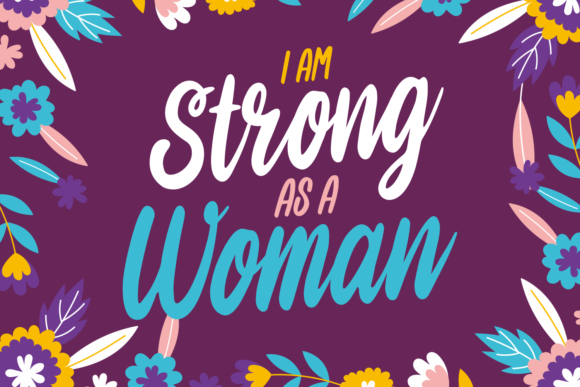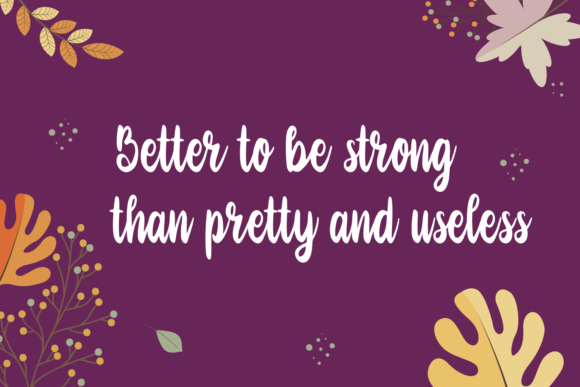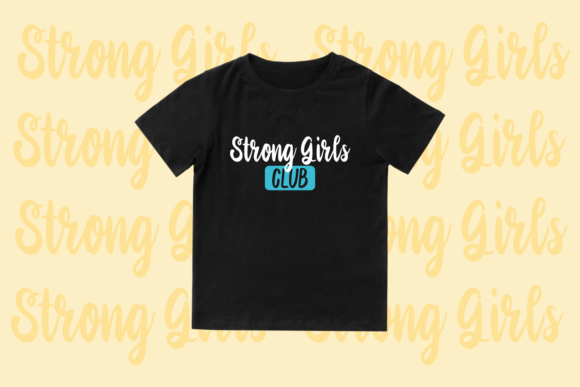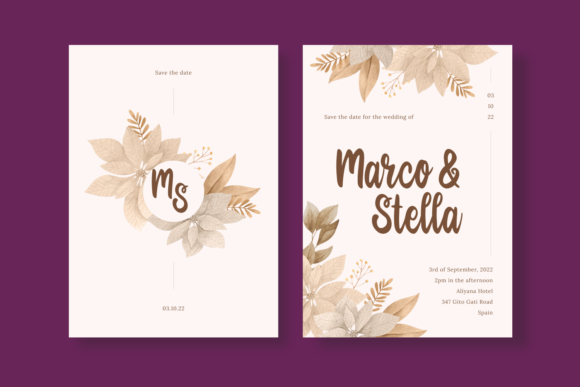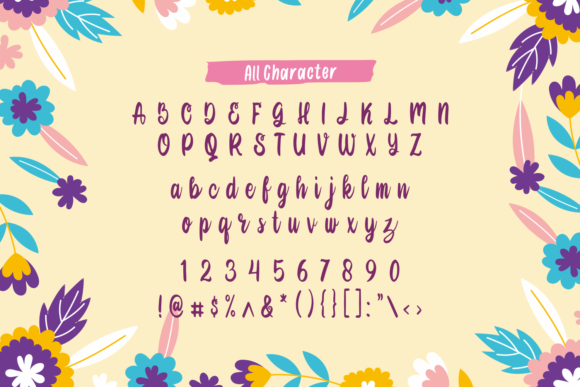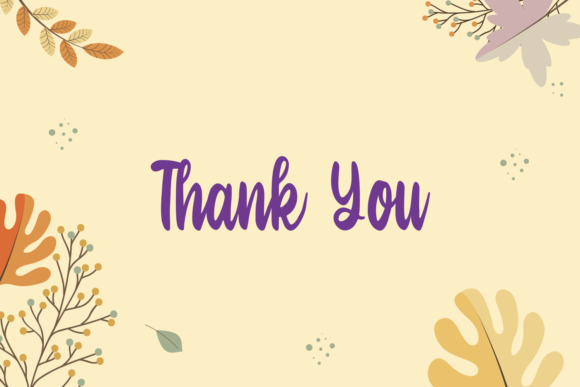
Introducing Deanita Font: Elevate Your Designs with Elegance and Sophistication
In the world of typography, a well-crafted font can make all the difference in elevating your design to the next level. For designers and crafters seeking a touch of elegance and sophistication, Deanita Font is an exceptional choice. This beautiful, well-balanced, and vintage-styled script font is defined by smooth curves, making it perfect for fashion branding or editorial designs.
The Characteristics of Deanita Font
Deanita Font boasts a range of characteristics that set it apart from other fonts. Its smooth, flowing curves give it a classic, timeless feel that is reminiscent of traditional script fonts. The font is meticulously designed to ensure that each letter flows seamlessly into the next, creating a beautiful and harmonious text that is a pleasure to read.
One of the standout features of Deanita Font is its versatility. Whether you’re working on a fashion brand, an editorial project, or any other design that requires a touch of elegance, this font is an excellent choice. Its vintage style ensures that it will add a touch of sophistication and refinement to your work, making it perfect for designers who want to create high-end designs.
Why Choose Deanita Font for Your Projects?
- Elegance and Sophistication: Deanita Font adds a touch of elegance and sophistication to any design, making it perfect for high-end fashion brands, editorial projects, and more.
- Versatility: This font is incredibly versatile and can be used in a wide range of design projects, from logos and branding to editorial designs and more.
- Easy to Read: Despite its ornate style, Deanita Font is surprisingly easy to read, making it perfect for body text as well as headlines.
- Unique and Memorable: With its unique, vintage style, Deanita Font is sure to make your designs stand out and leave a lasting impression.
How to Use Deanita Font in Your Designs
- Pair it with a Sans Serif Font: For a classic look, pair Deanita Font with a sans serif font. This will create a beautiful contrast between the ornate script font and the clean, modern sans serif font.
- Use it for Headlines and Titles: Deanita Font is perfect for headlines and titles, where its elegant, cursive style can really shine.
- Experiment with Different Sizes and Colors: Don’t be afraid to experiment with different sizes and colors of Deanita Font. Its versatility means that it can be used in a wide range of design projects, from small icons to large billboards.
In conclusion, Deanita Font is a beautiful, well-balanced, and vintage-styled script font that is perfect for designers and crafters seeking to add a touch of elegance and sophistication to their designs. With its smooth curves, versatility, and ease of use, it’s an excellent choice for fashion branding, editorial designs, and more. Whether you’re working on a high-end fashion brand or a personal project, Deanita Font is sure to elevate your design to the next level.